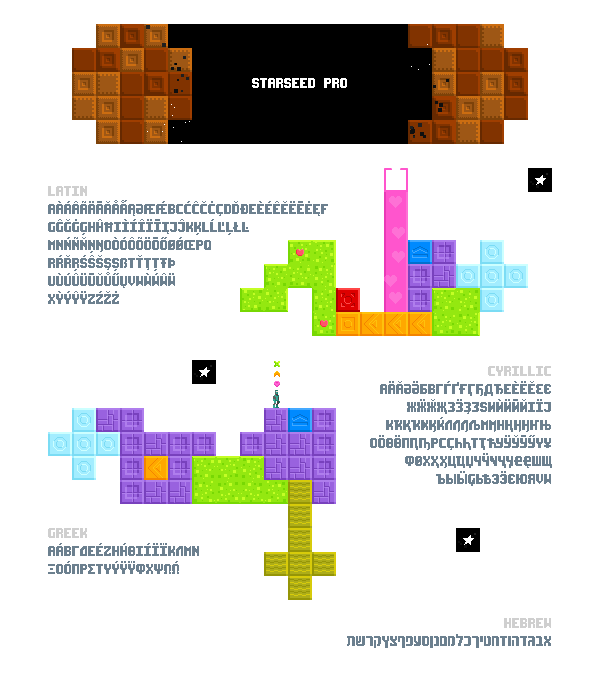
Font name: | Starseed Pro |
Author: | Aleksandr Savenkov |
Note by Aleksandr Savenkov | |
Starseed Pro is based on the font from the game Starseed Pilgrim by Droqen. It's no longer monospaced, but now it supports roughly 200 languages. Starseed Pro includes glyphs for Extended Latin, Extended Cyrillic, Greek, and Hebrew. |